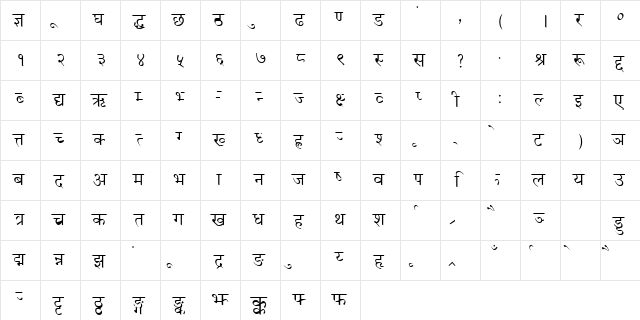
DINA-B evanagari Font Preview
DINA-B evanagari
DINA-B evanagari Font Details
| Style | evanagari |
Design Context for DINA-B Typeface
DINA-B is a composed and adaptable typeface that performs quietly and consistently across a wide range of design contexts.